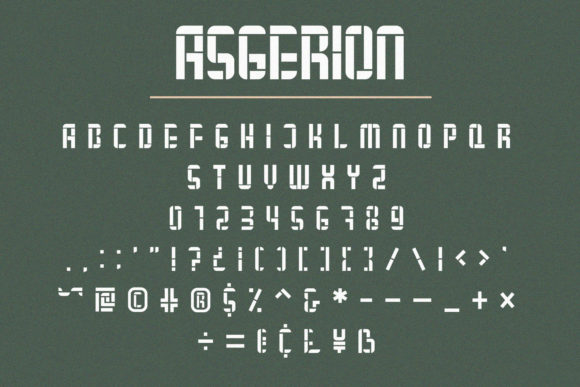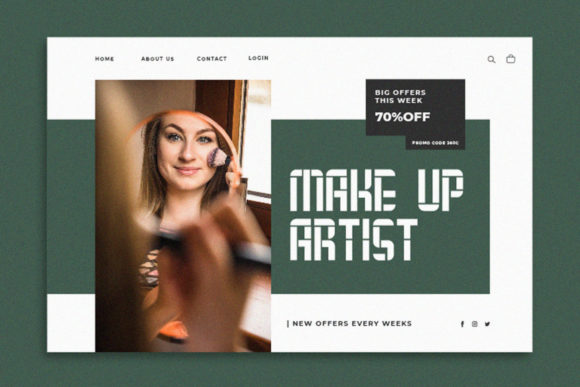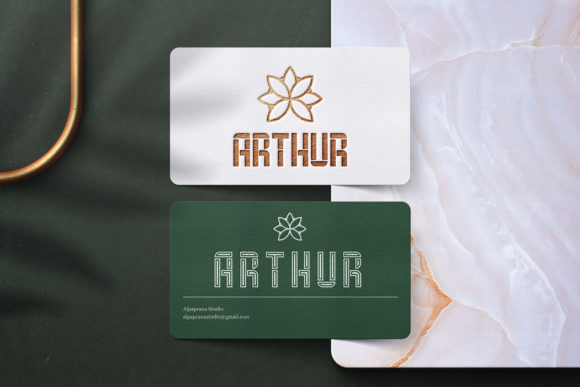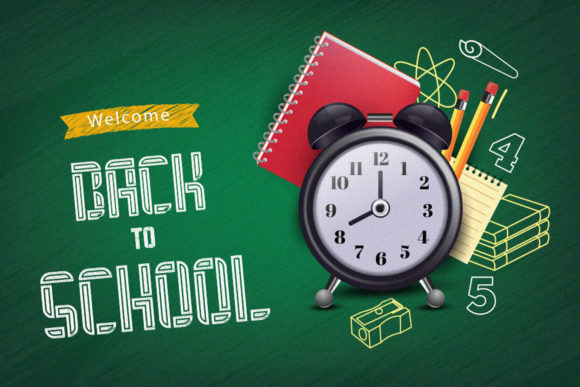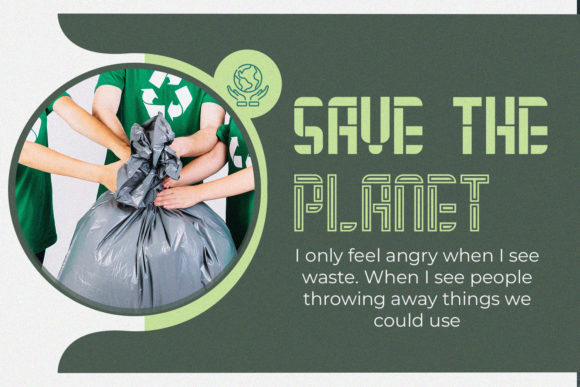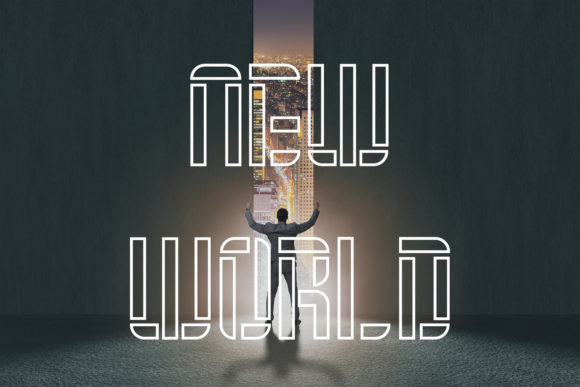
The Asgerion Font: A Luxurious Touch for Your Designs
I’ll never forget the time I was working on a high-end branding project for a luxury fashion client. I had spent hours perfecting the logo, but something was missing – the right font. I scoured the internet, tried countless combinations, but nothing seemed quite right. That was until I stumbled upon the Asgerion font. Its luxurious and assertive style instantly elevated my design, and I knew I had found the perfect fit.
A Personal Review of Asgerion
• ✨ Luxurious and assertive style: Asgerion exudes high-end sophistication, making it perfect for branding, advertising, and marketing materials.
• ✅ Highly versatile: This font is ideal for writing web designs, business cards, or pretty much anything else that requires a unique touch.
• 🎉 Excellent for headlines and titles: Asgerion’s bold and eye-catching design makes it perfect for grabbing attention and creating a lasting impression.
While Asgerion is an excellent font, there are a few things to keep in mind:
• 🤔 Limited use for body text: Asgerion’s bold style can be overwhelming for large blocks of text. It’s best used for headlines, titles, and short paragraphs.
• ⚠️ May require adjustments for certain languages: As with any font, some languages may require additional adjustments to ensure proper kerning and spacing.
The Backstory of Asgerion
Asgerion was designed by a renowned type foundry with a passion for creating unique and luxurious fonts. The designer’s inspiration came from classic luxury brands and the world of high-end fashion. The result is a font that exudes sophistication and elegance, perfect for designers looking to add a touch of luxury to their work.
Q: What is the best use for Asgerion?
A: Asgerion is ideal for headlines, titles, and short paragraphs where a luxurious and assertive style is desired.
Q: Can I use Asgerion for body text?
A: While Asgerion can be used for body text, it’s not recommended for large blocks of text. Its bold style can be overwhelming and may be better suited for shorter paragraphs or titles.
Q: Is Asgerion suitable for digital use?
A: Yes, Asgerion is optimized for digital use and can be used for a wide range of digital applications, including web design, social media, and email marketing.